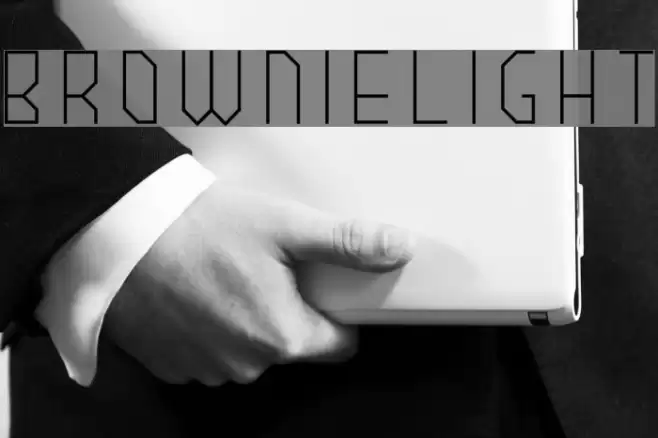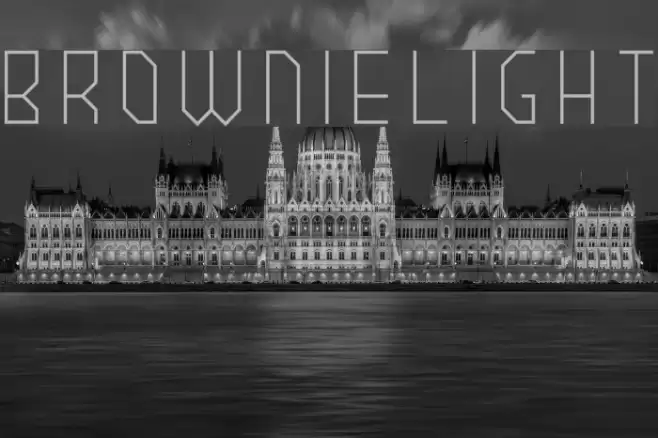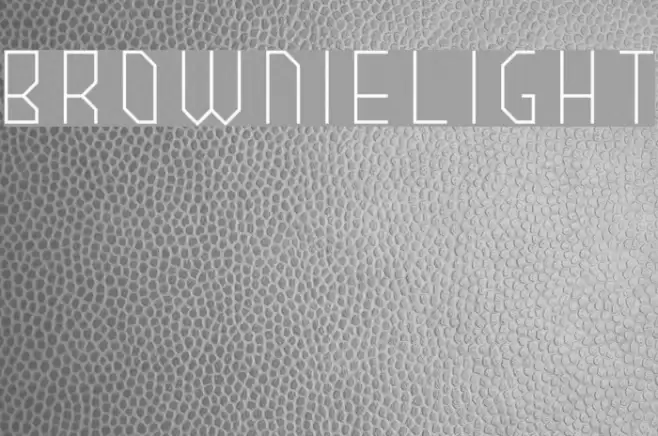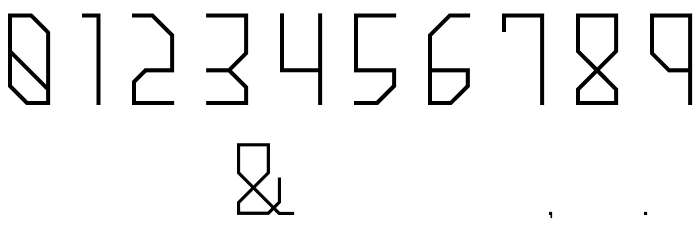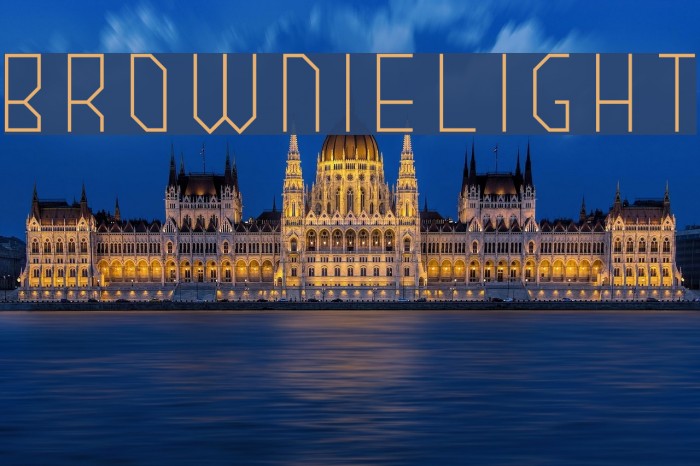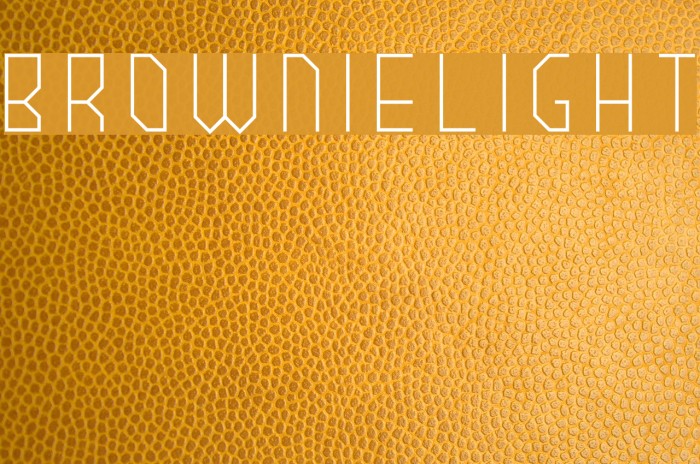
BROWNIElight Font
BROWNIElight Description
This font features a geometric and angular design, characterized by its sharp corners and straight lines. The uppercase and lowercase letters maintain a consistent height, giving it a uniform appearance. The numerals follow the same angular style, providing a cohesive look across all characters. The font's minimalistic and modern aesthetic makes it suitable for contemporary design projects. Its unique structure is eye-catching, yet remains legible, making it versatile for various applications.
A geometric, angular font with a modern and minimalistic design from Uncategorized fonts.
- Proposed Projects: Ideal for branding, logos, posters, and modern digital interfaces.